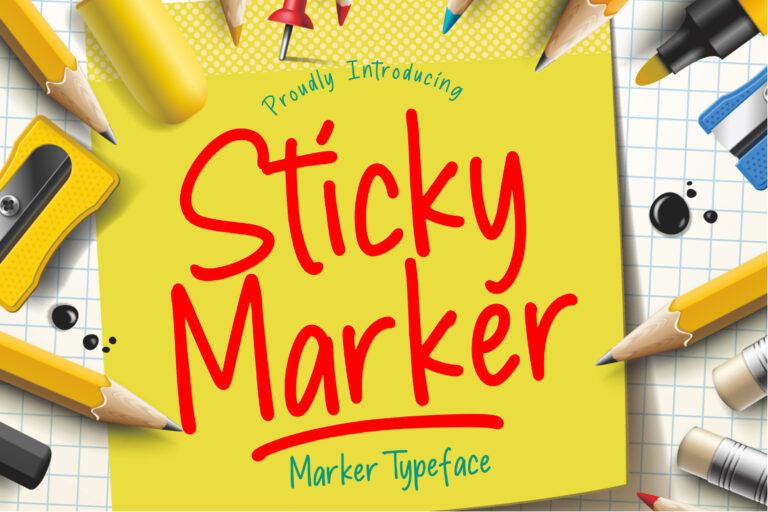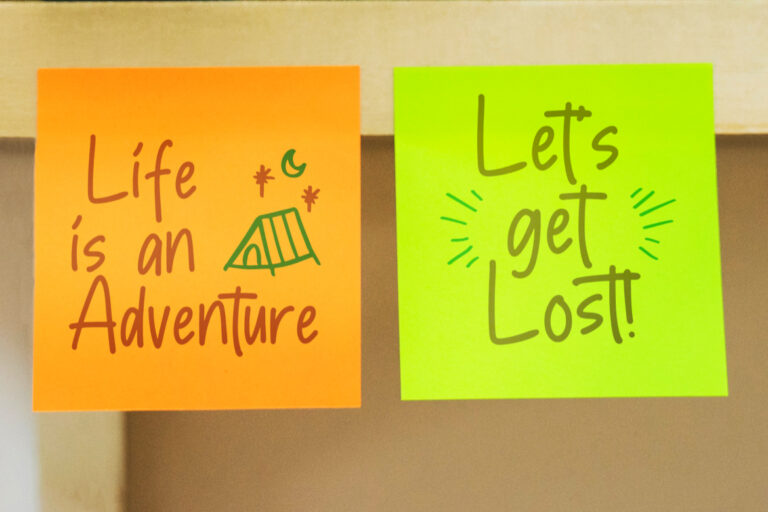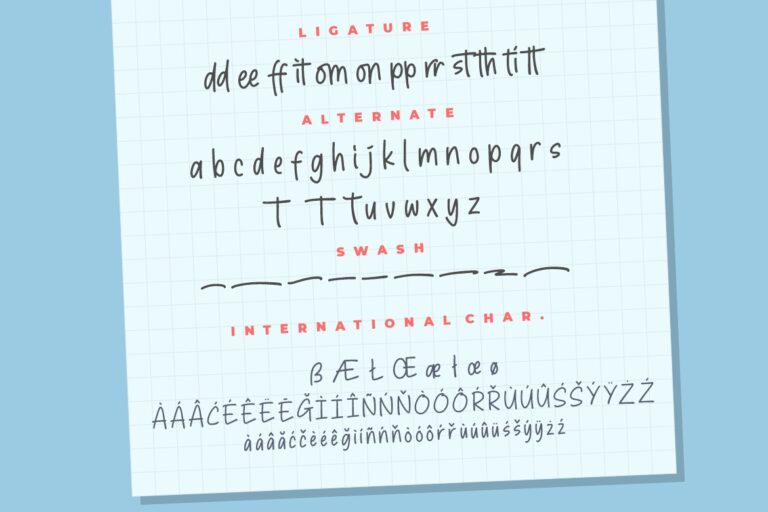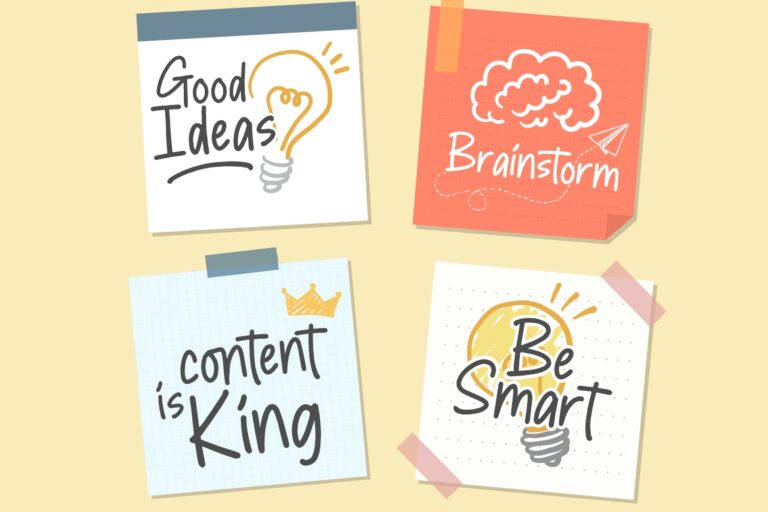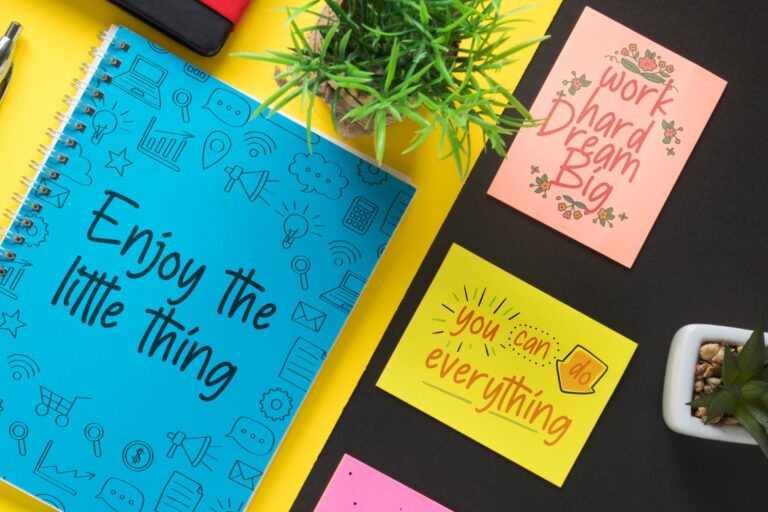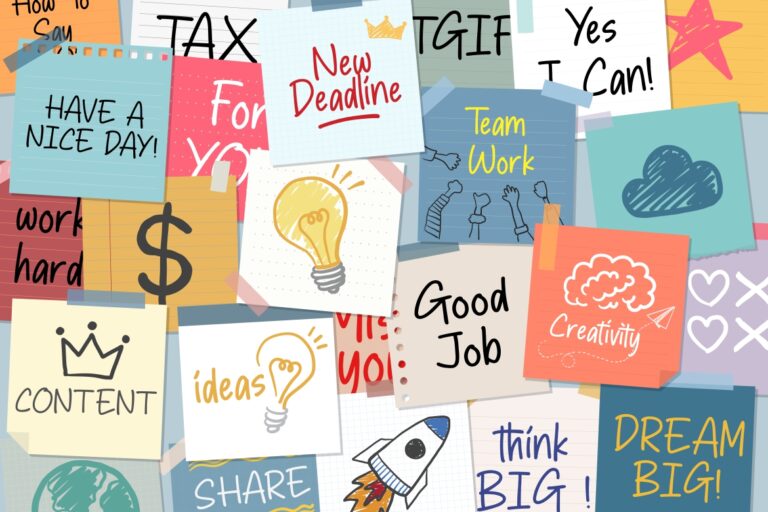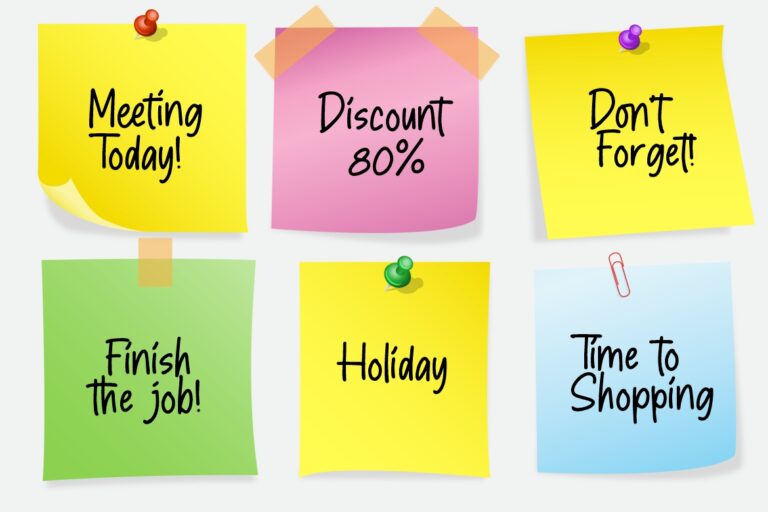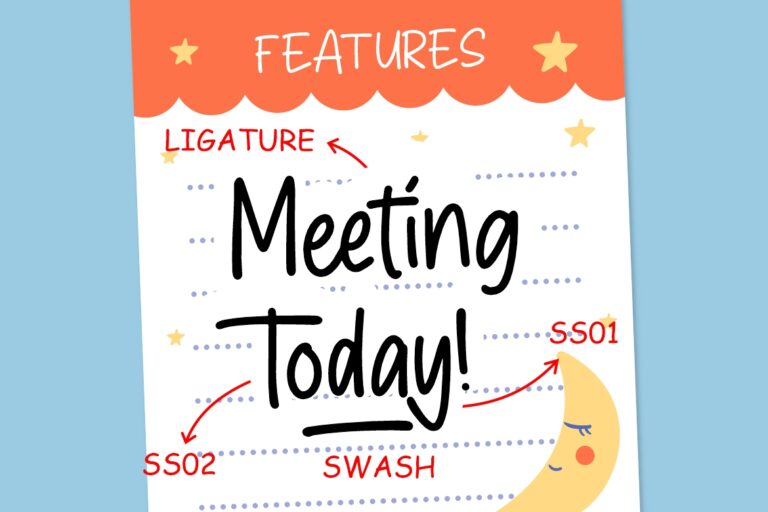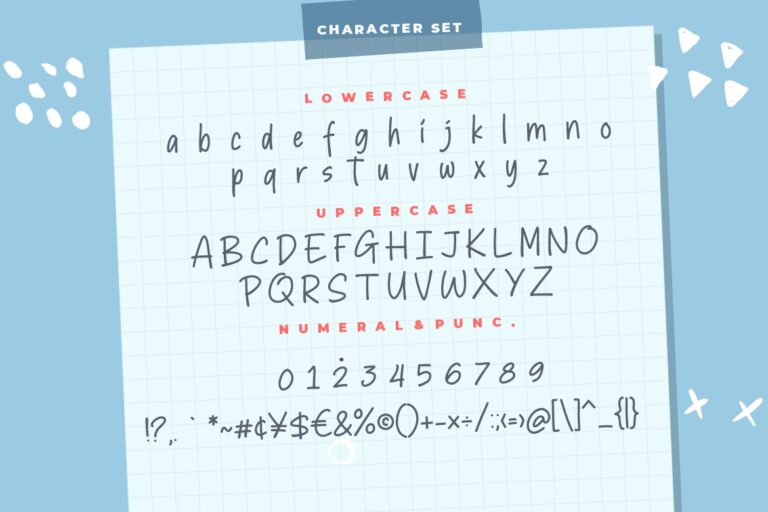
Sticky Marker is fun monoline marker font look a like that perfect for your any projects.
Sticky Marker is perfect for branding projects, logo, wedding designs, social media posts, advertisements, product packaging, product designs, label, photography, watermark, invitation, stationery and any projects that need handwriting taste.
Sticky Marker Typeface